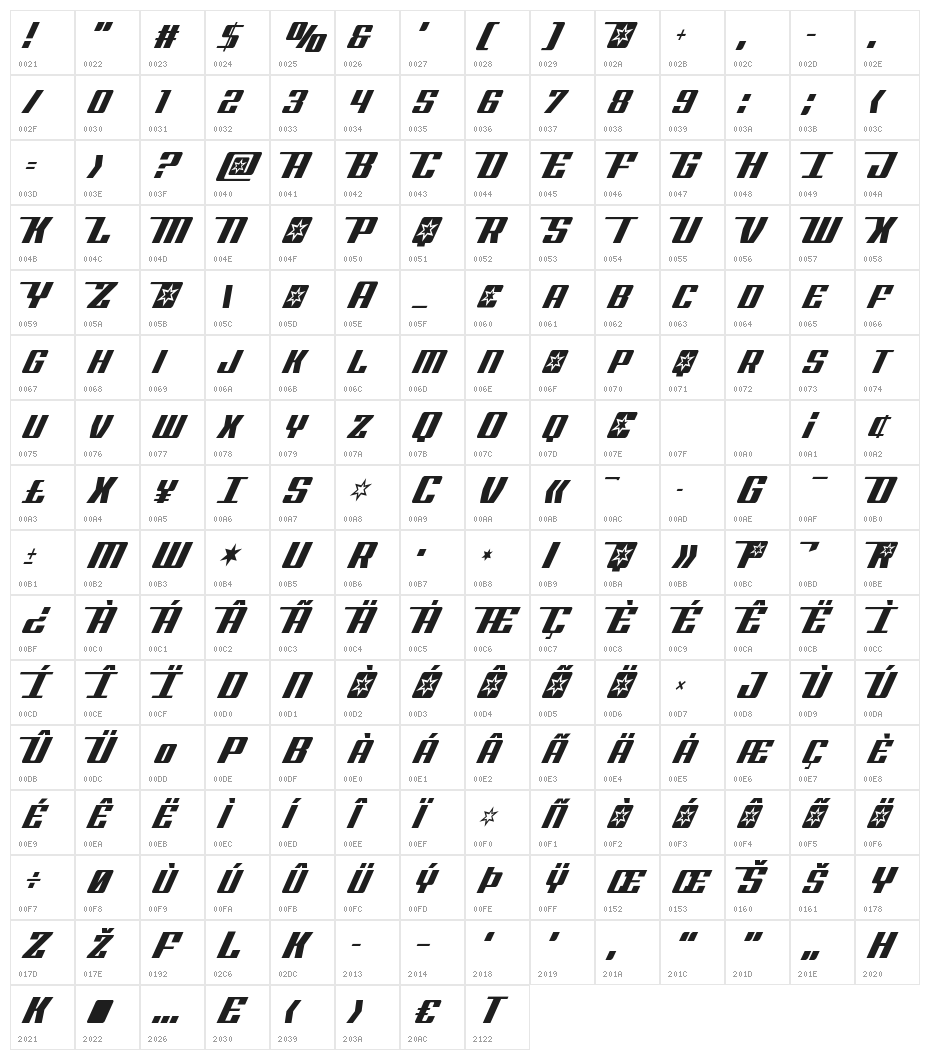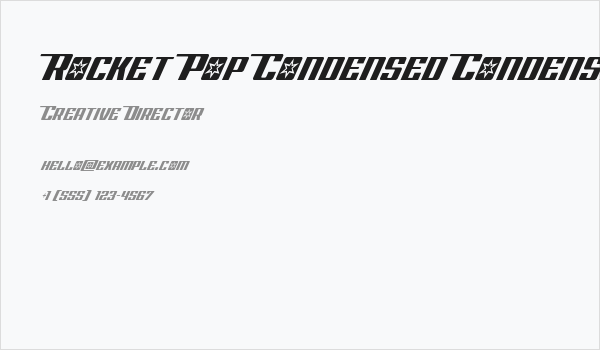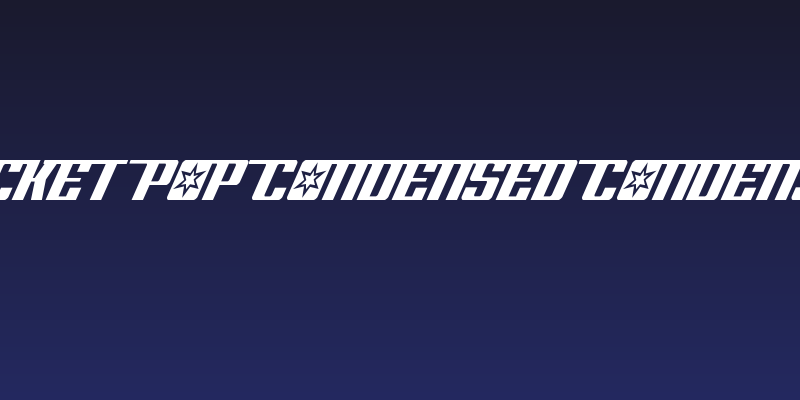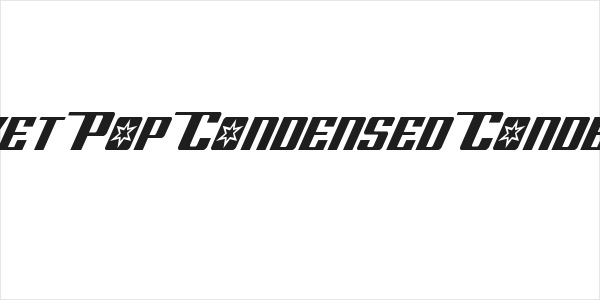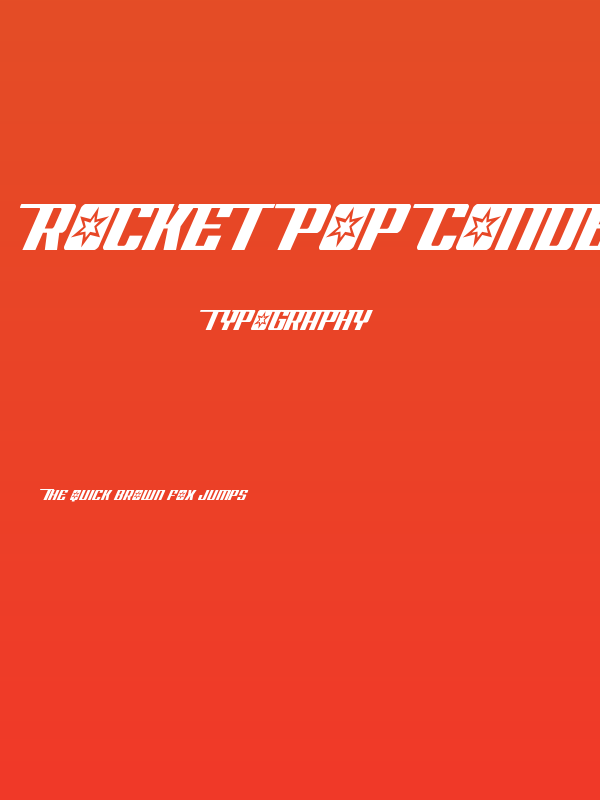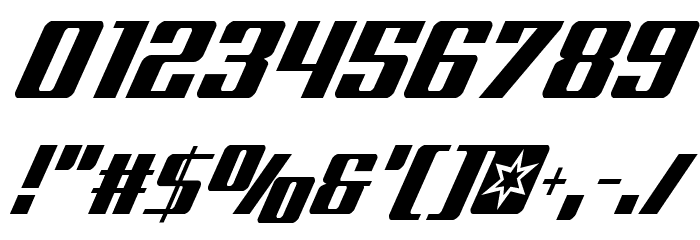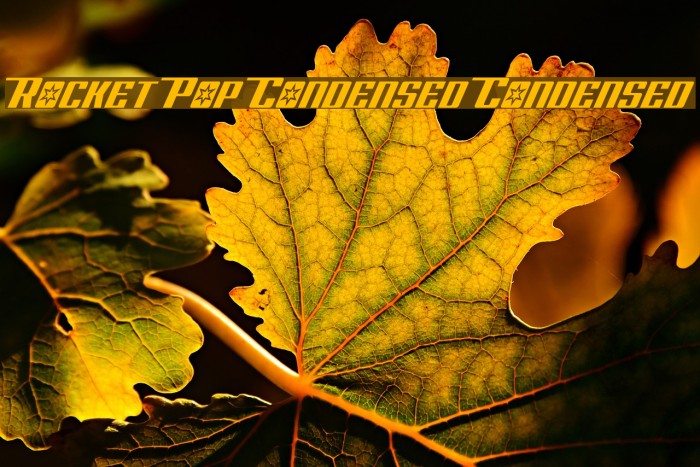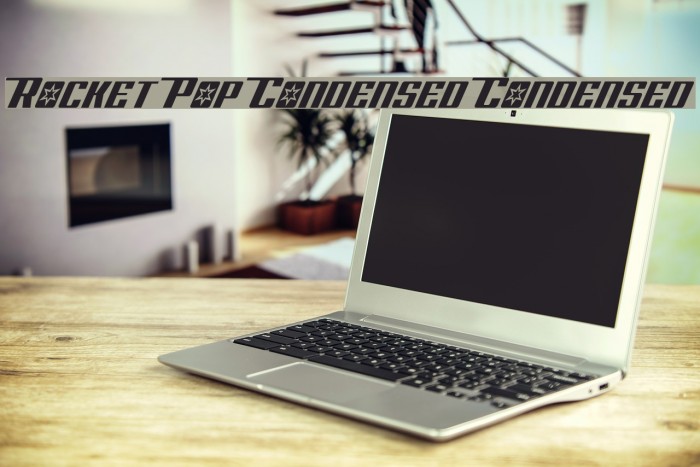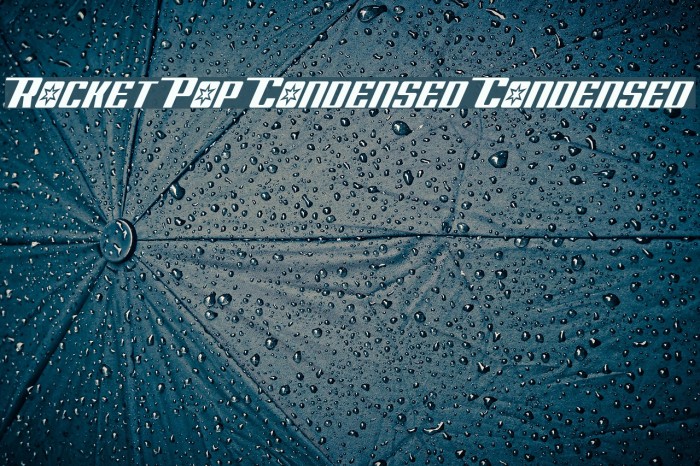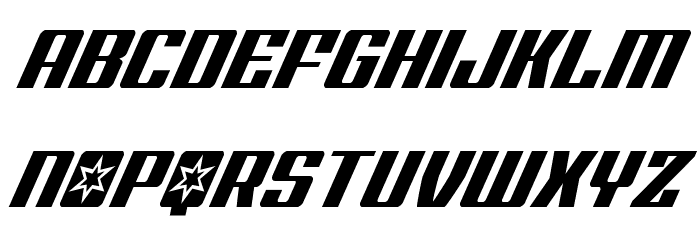
Rocket Pop Condensed Font
Rocket Pop Condensed Description
This font features a bold and dynamic style with a condensed structure, giving it a strong and impactful presence. The characters are designed with sharp angles and a slight slant, enhancing the sense of movement and energy. The uppercase letters are particularly striking, with some characters incorporating star-like embellishments that add a unique flair. The numbers and special characters maintain the bold and angular aesthetic, ensuring consistency across all glyphs. This font is well-suited for projects that require a modern and edgy look, such as sports branding, posters, and dynamic headlines.